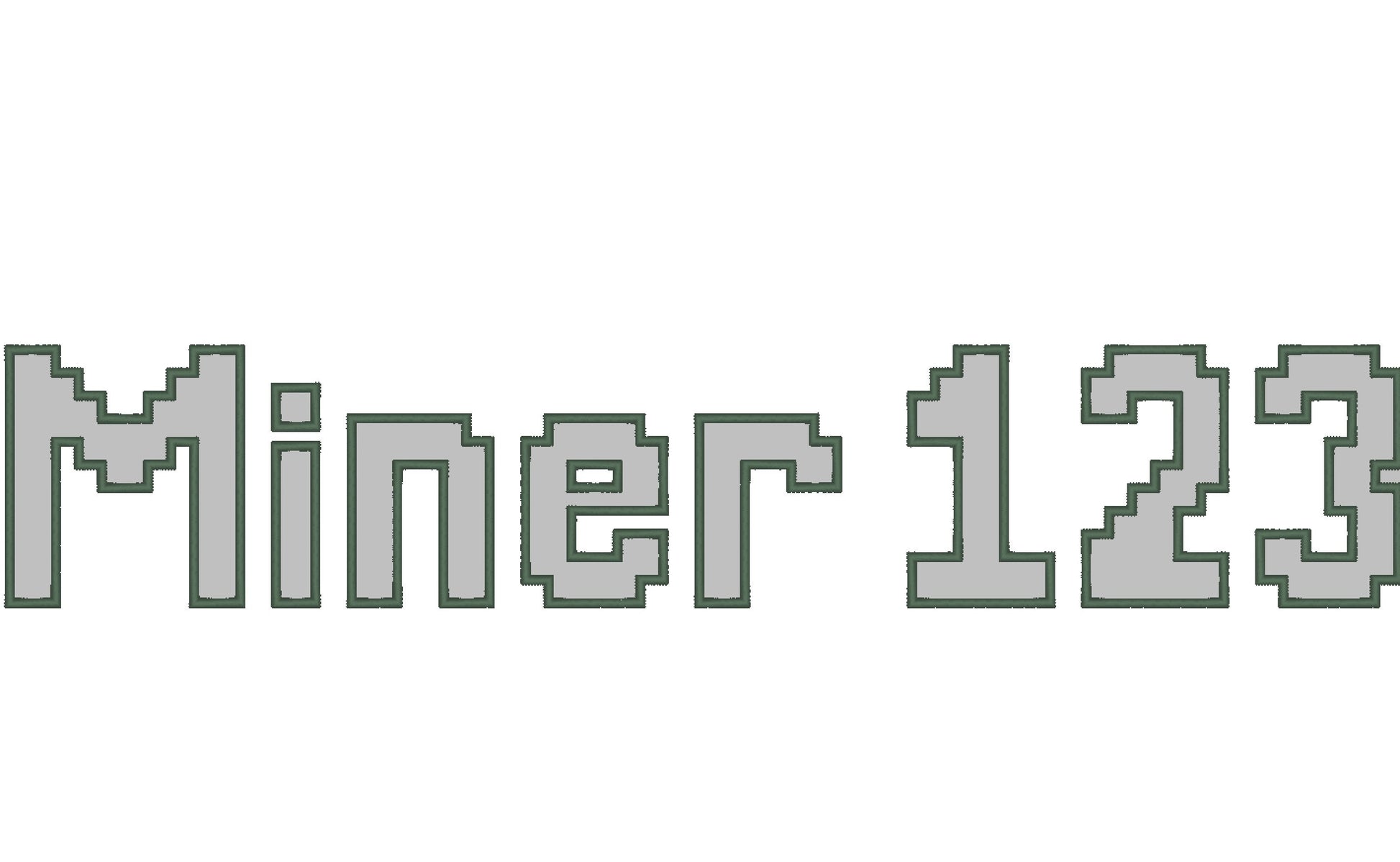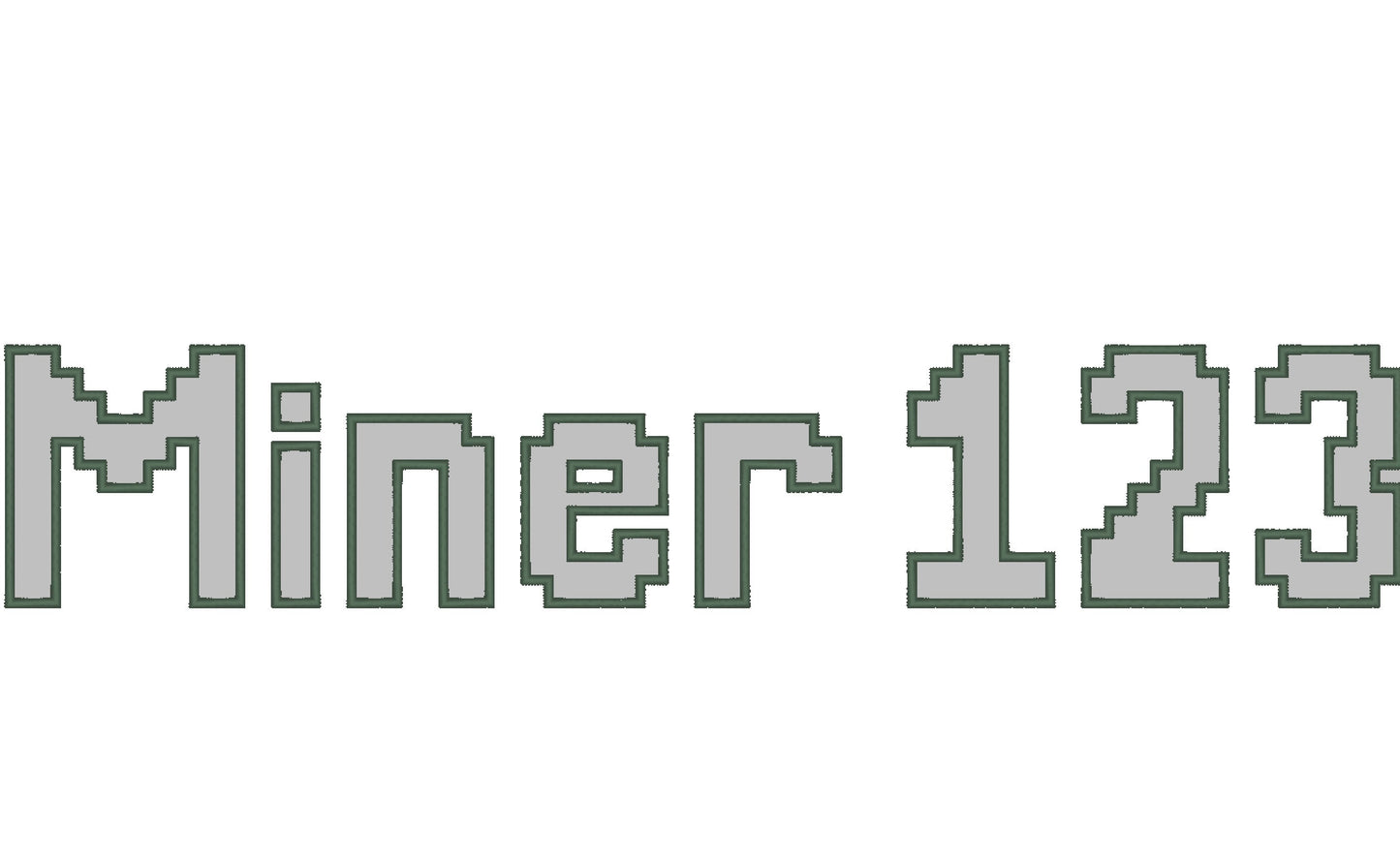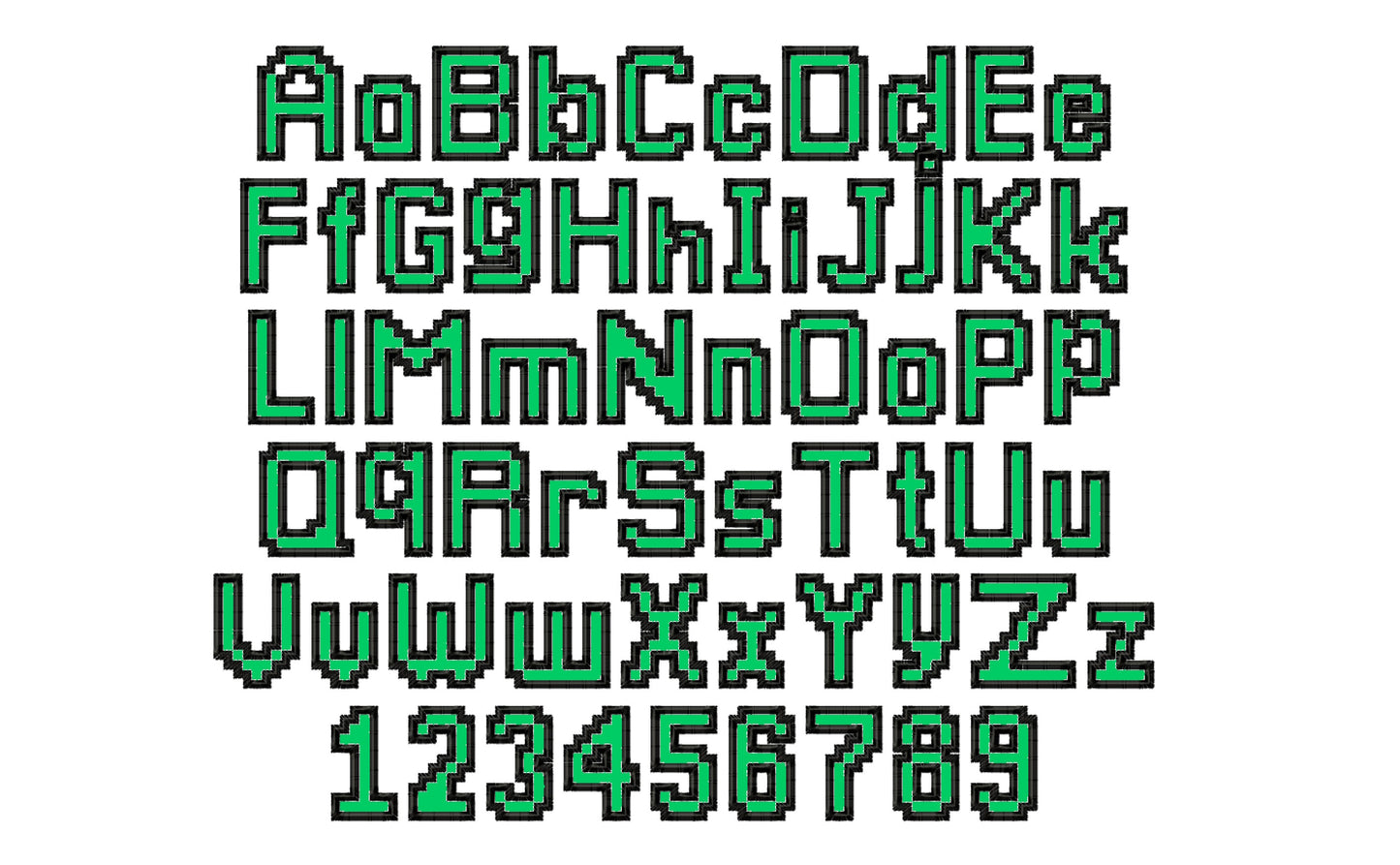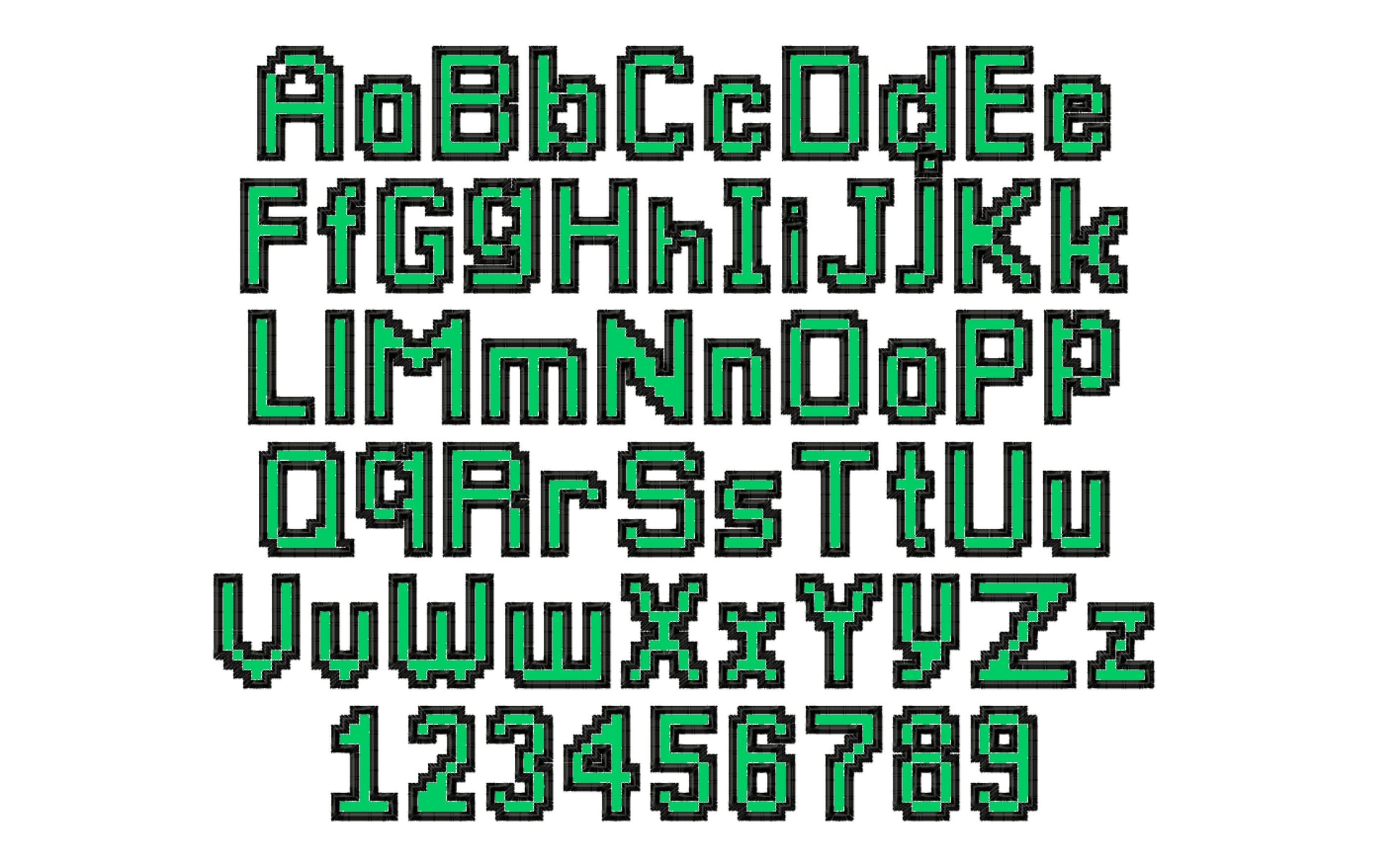
Miner Bricks Pixel Boys Font Applique
Or click to open the linkMiner Bricks pixel Font alphabet applique machine embroidery design, monogram, brick letters playful great for kids and boys, BX included!